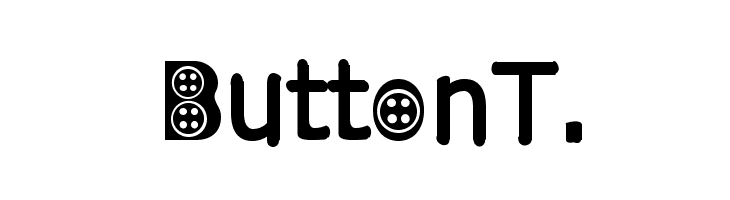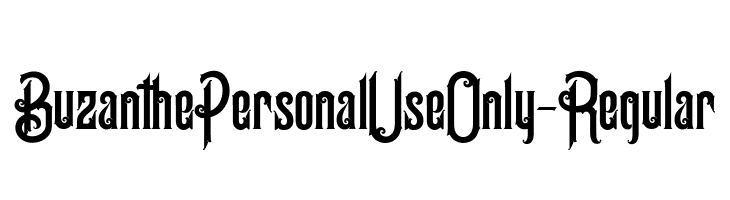
A modern, elegant font with clean lines and a sophisticated aesthetic.
A bold, outlined sans-serif font with a modern and playful style.
A bold, handwritten font with a dynamic and energetic style.
A bold, flowing script font with a dynamic and elegant handwritten style.
A classic serif font with high contrast and elegant, thin lines.
A bold, expressive handwritten font with fluid, connected strokes.
A flowing, cursive font with elegant, interconnected strokes.
A bold, stencil-style font with high contrast and geometric shapes.
A dynamic blend of script elegance and geometric modernity.
Not a valid font; consists of repeated decorative images.
The image does not depict a recognizable font.
A bold, rounded font with a modern and impactful style.
A bold, italic font with a strong slant and thick strokes, perfect for impactful designs.
A dynamic and elegant script font with flowing, cursive letterforms.
A bold, playful font with rounded, hand-drawn characters.
A bold, geometric font with sharp, angular edges and a vintage industrial style.
A distressed, grungy font with a bold, vintage aesthetic.
A bold, graffiti-inspired font with sharp angles and an urban aesthetic.
A bold, playful font with exaggerated curves and a cartoonish style.
A playful, handwritten font with smooth, rounded edges and a casual vibe.
A bold, playful font with a hand-drawn, energetic style.
A playful, textured handwritten font with a casual, informal style.
A bold, geometric, and futuristic outlined font with a playful aesthetic.
A bold, geometric outline font with a modern and playful style.
A whimsical, hand-drawn font with an organic, playful style.
A bold, rugged font with a distressed, ancient script style.
A whimsical and decorative font with playful curls and loops, perfect for fantasy-themed projects.